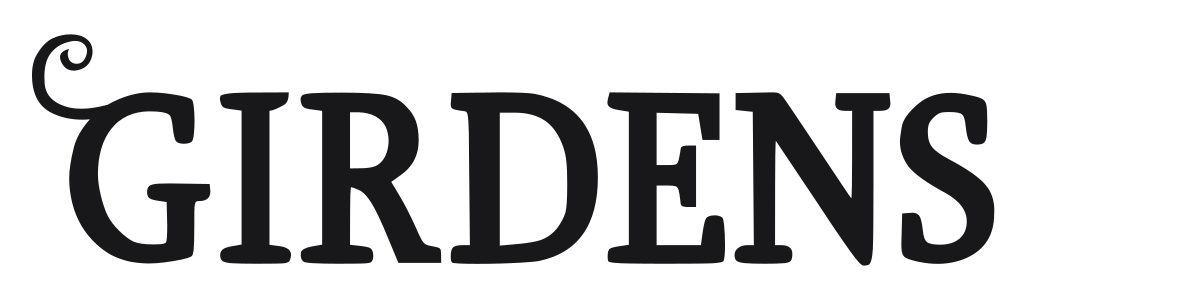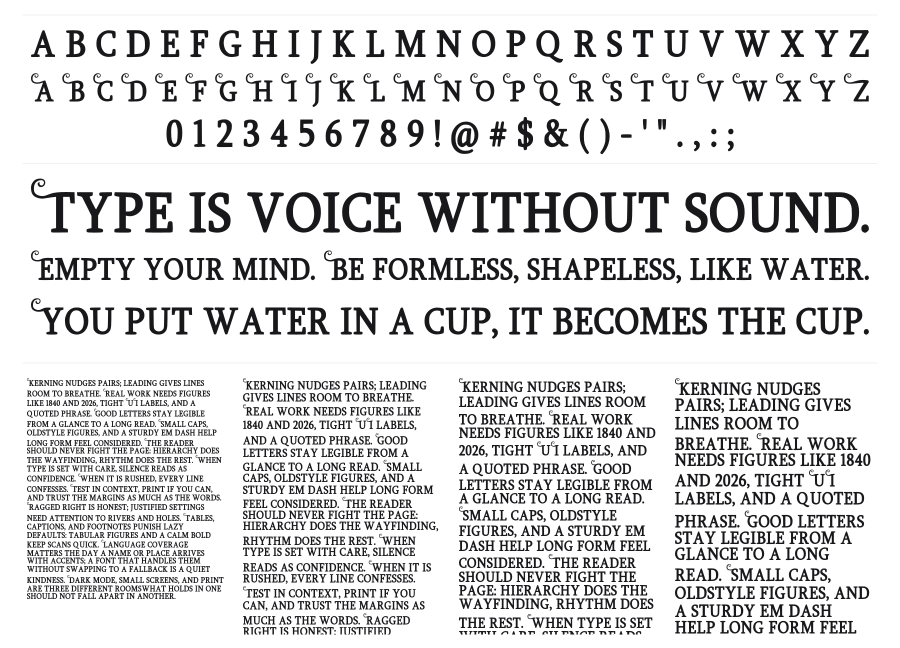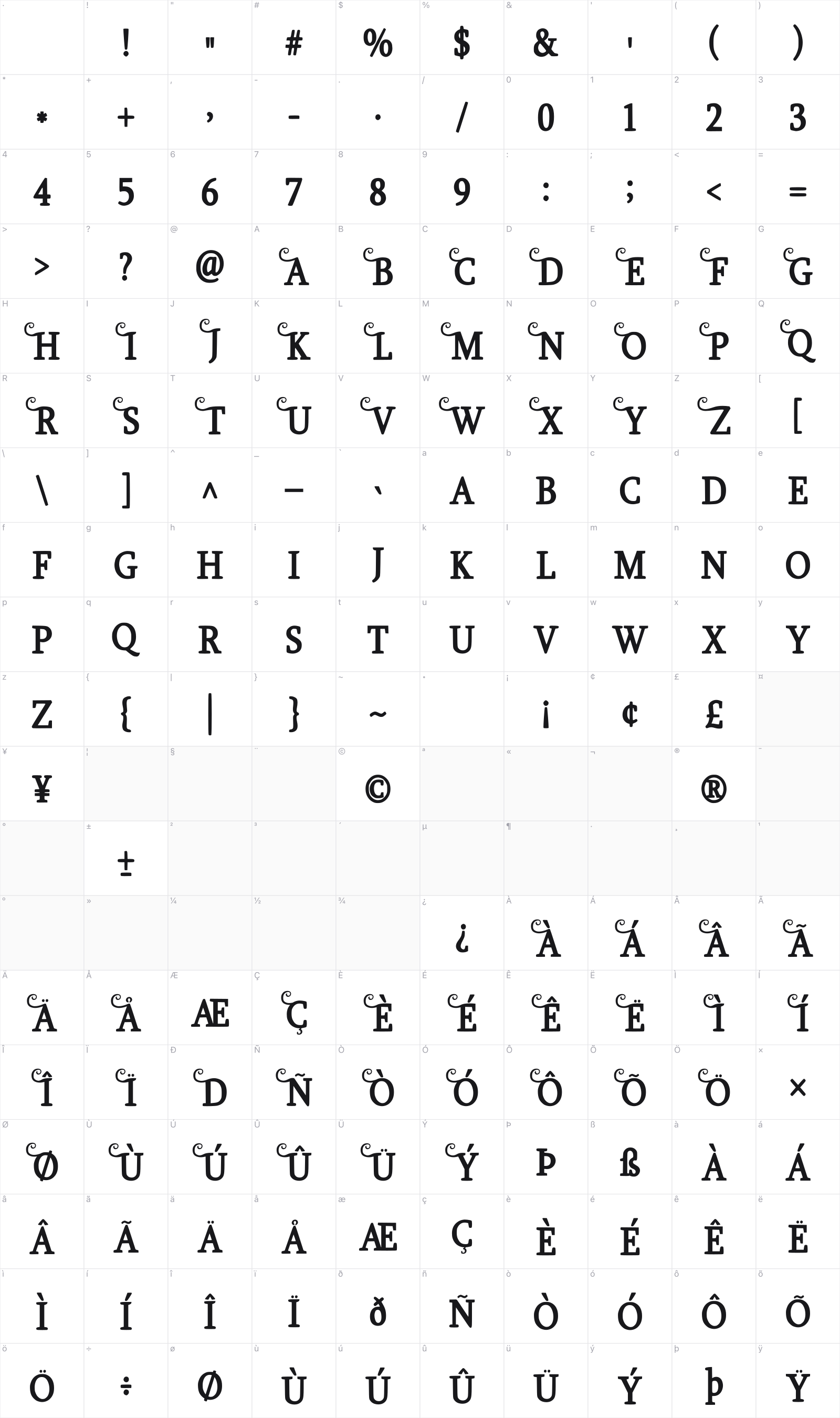
Girdens
by StringLabs Creative Studio · Website
Girdens is a bold slab-serif with sturdy bracketed serifs and confident, wide proportions. It draws on the Clarendon and Egyptian traditions of 19th-century press typography, giving it a solid, authoritative weight that carries well at large sizes. Good for headlines, editorial work, and brand identities that need a grounded, classic voice.